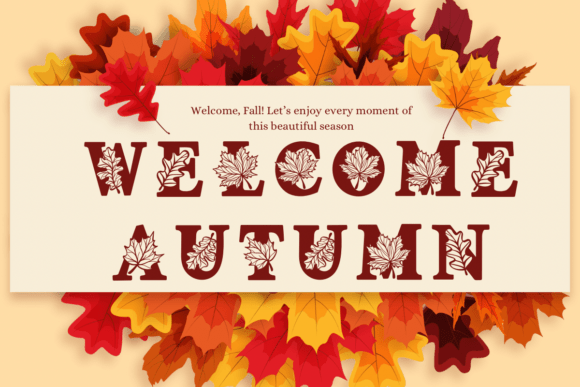
Season Fall Leaf Font
Season fall leaf is a Decorative font. You can use it for taking notes, writing a diary, or making greeting cards. However, you can still use it for other designs, such as banners, content, mugs, cards, shirts, stationery, social media posts, and more!